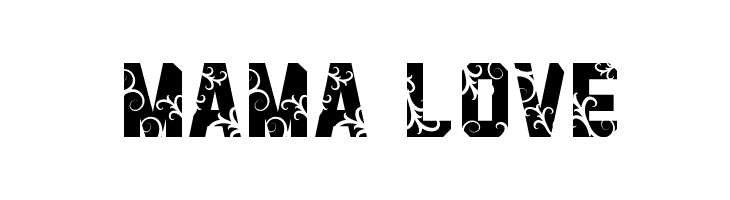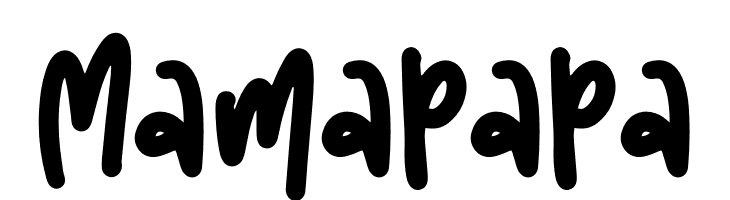
A playful, quirky font with circular accents and star motifs, perfect for creative projects.
A playful, handwritten-style font with bold, slanted characters.
A dynamic, scribbled script font with a playful and energetic style.
A bold, hand-drawn font with a textured, sketch-like pattern and rounded edges.
A modern, geometric font with smooth curves and consistent line thickness.
A playful set of star-themed dingbats with diverse styles and patterns.
A decorative font with playful star-themed symbols.
A playful, hand-drawn font with rounded, irregular strokes.
A playful, handwritten font with quirky, heart-themed elements.
A playful, handwritten font with a whimsical and informal style.
A playful, handwritten font with a friendly and casual style.
A playful, bold handwritten font with rounded edges and a casual style.
A playful, narrow font with elongated characters and a quirky style.
A playful, hand-drawn font with rounded edges and a friendly aesthetic.
A playful, hand-drawn font with quirky, irregular curves and a whimsical style.
An elegant, cursive script font with flowing, decorative strokes.
An elegant script font with flowing, cursive style and delicate flourishes.
A playful, cursive script font with decorative loops and smooth flow.
A cursive script font with elegant, flowing strokes and a handwritten appearance.
A decorative font featuring artistic zodiac symbols with a mystical flair.
A playful, handwritten font with a casual and friendly style.
A decorative font with characters inside snowflake designs, perfect for winter themes.
A playful, handwritten brush-style font with bold, consistent strokes.
A bold, handwritten-style font with a playful and dynamic appearance.
A bold, hand-drawn style font with a playful, chalk-like appearance.
A classic, elegant script font with flowing, cursive letters.